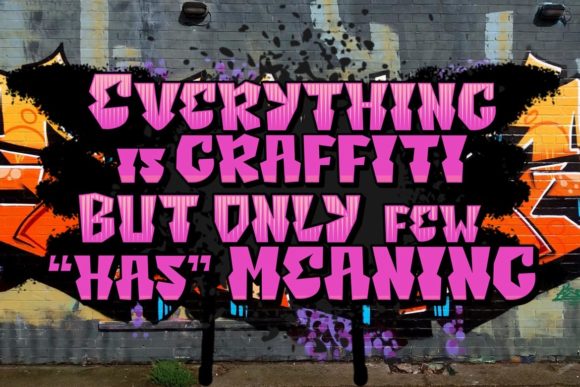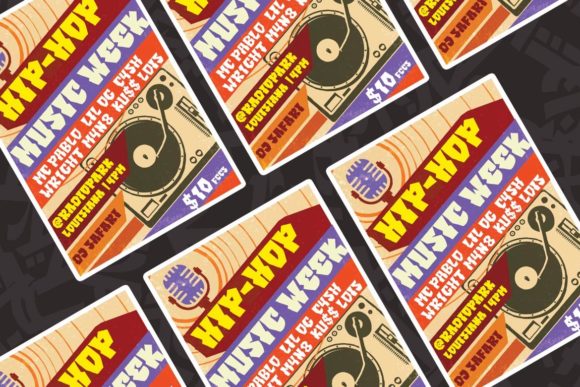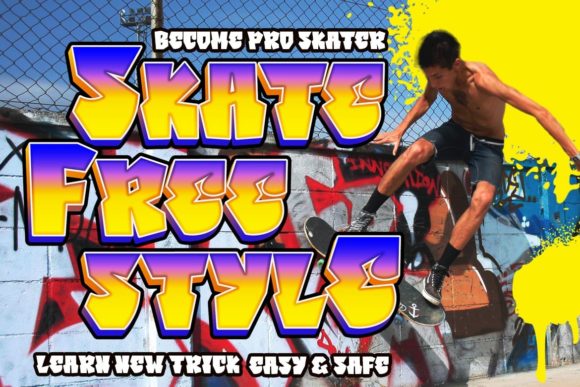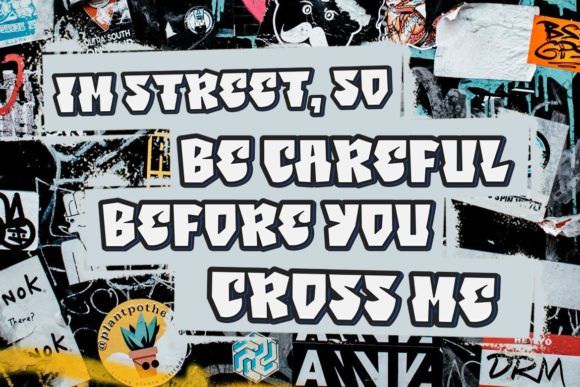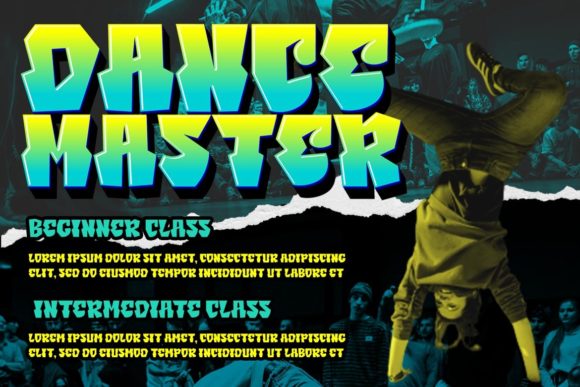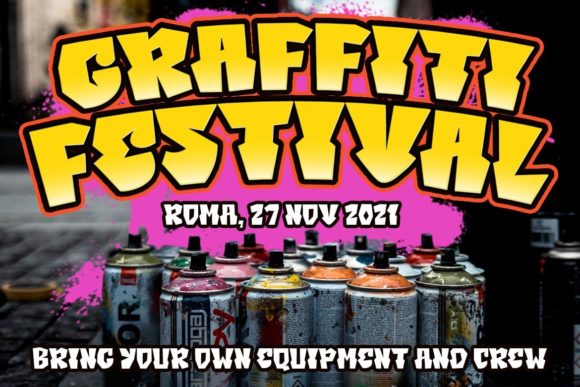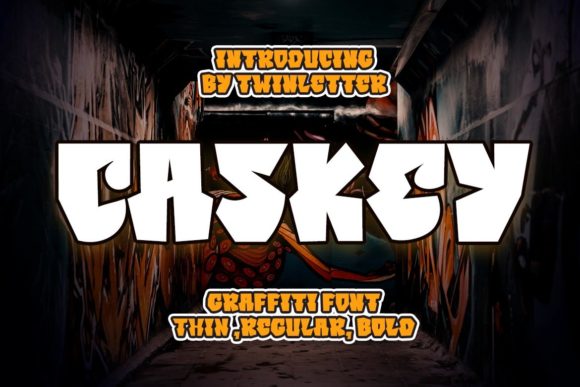
Caskey Font: Unleash Your Creativity with this Graffiti-Styled Display Font
Are you a designer or crafter looking for a bold and eye-catching font to add some street art flair to your designs? Look no further than the Caskey Font. This graffiti-styled display font is perfect for creating unique and attention-grabbing designs for t-shirts, sportswear, logos, advertisements, clothing, and more.
The Urban Vibe of Caskey Font
Caskey Font boasts a bold, street art vibe that is sure to make your designs stand out from the crowd. Its graffiti-inspired style gives it a raw, edgy feel that is perfect for designers who want to add a touch of urban grit to their work. Whether you’re designing for fashion, advertising, or editorial use, Caskey Font is sure to bring a fresh and modern aesthetic to your projects.
Key Features of Caskey Font
- Graffiti-styled display font: Caskey Font features a bold, graffiti-inspired style that is perfect for creating eye-catching designs.
- Bold and street art vibe: This font has a raw, edgy feel that is sure to add a touch of urban grit to your designs.
- Versatile: Caskey Font is suitable for a wide range of design applications, including t-shirts, sportswear, logos, advertisements, clothing, and more.
- Easy to read: Despite its bold and edgy style, Caskey Font is surprisingly easy to read, making it perfect for use in a variety of design contexts.
Design Applications for Caskey Font
Caskey Font is a versatile font that can be used in a wide range of design applications. Here are some ideas to get you started:
- T-shirts and apparel: Caskey Font is perfect for designing bold and eye-catching t-shirts, hoodies, and other apparel.
- Sportswear: Add a touch of street art flair to your sportswear designs with Caskey Font.
- Logos and branding: Use Caskey Font to create bold and memorable logos and branding materials.
- Advertisements: Caskey Font is perfect for creating eye-catching advertisements that grab attention.
- Clothing and fashion: Use Caskey Font to add a touch of urban grit to your clothing and fashion designs.
Tips for Using Caskey Font
Here are some tips for getting the most out of Caskey Font:
- Use it boldly: Caskey Font is a bold font, so don’t be afraid to use it in large sizes to make a statement.
- Experiment with colors: Caskey Font looks great in a variety of colors, so don’t be afraid to experiment and find the perfect hue for your design.
- Pair it with other fonts: Caskey Font can be paired with a variety of other fonts to create interesting and dynamic designs.